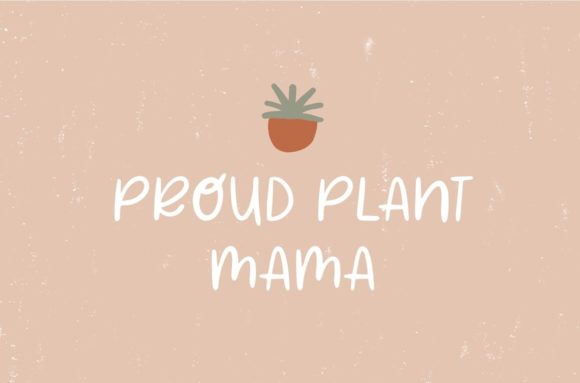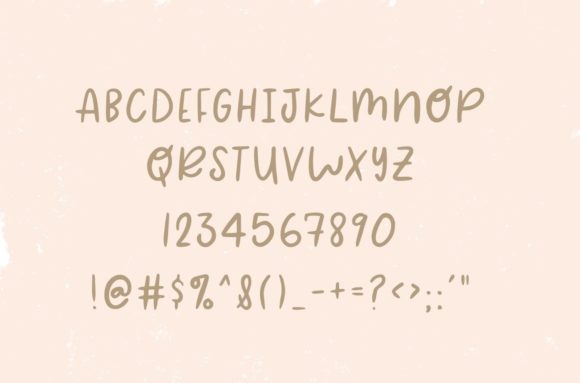
Plant Mama Font
db-ku.com - Script & Handwritten -- Plant Mama is a playful handwritten font that is perfect for adding a personal touch to your next project.